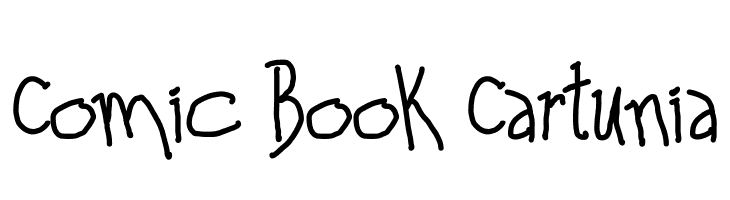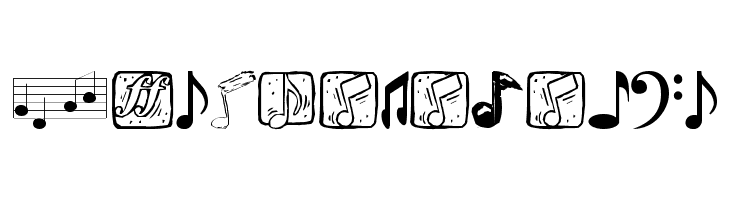
Chaque police phare se distingue par équilibre, lisibilité et polyvalence. Vous trouverez des sans‑serifs modernes, des scripts élégantes, des serifs vintage et des displays minimalistes.
( Fonts by Des Gomez )
A playful, handwritten font with whimsical doodles and a friendly style.
An elegant, cursive font with flowing, intricate strokes.
( weknow - Wino S Kadir - www.creativefabrica.com/designer/weknow/ )
A bold, hollow font with rounded edges and a playful, modern look.
( Xerographer Fonts - Max Infeld - xerographer.blogspot.com )
A playful, zigzag-outlined font with a dynamic and energetic style.
( Fonts by Agus Dwiyanto )
A dot-based display font with a digital, pixelated style.
A bold, condensed font with a geometric and modern style.
A modern, geometric font with a clean and uniform appearance.
( Fonts by Darko Bogdanov )
A modern italic font with a gradient line effect, offering a dynamic and stylish appearance.
( Fonts by David Kerkhoff - www.hanodedphotography.com )
A bold, hand-drawn font with a playful outline style.
A whimsical, decorative font with vine-like embellishments.
( گالری فانت فارسی پژوهش آريانا - only compatible with Farsi and Arabic )
A decorative font with a rope-like texture, perfect for creative and playful designs.
Whimsical, face-themed decorative font with abstract circular glyphs.
( Fonts by Inermedia Studio )
A playful and elegant handwritten font with flowing curves and decorative swashes.
A classic, readable serif font with balanced proportions and moderate contrast.
A playful font featuring a variety of creative nose illustrations.
A bold, wavy font with an organic, playful style.
( Fonts by www.houseoflime.com )
A playful, balloon-inspired decorative font with bold outlines.
A playful, bold font with rounded edges and even spacing, ideal for friendly designs.
( Jeni Pleskow - rois.org/ )
A futuristic, abstract font with sharp angles and minimalistic strokes.
A bold, futuristic font with a unique striped pattern and dynamic visual effect.
A bold, 3D italic font with a playful and dynamic style.
( Fonts by twinletter )
A bold, geometric font with sharp angles and playful shapes.
A fluid, handwritten script font with elegant, connected characters.
An elegant script font with ornate floral embellishments and high contrast strokes.